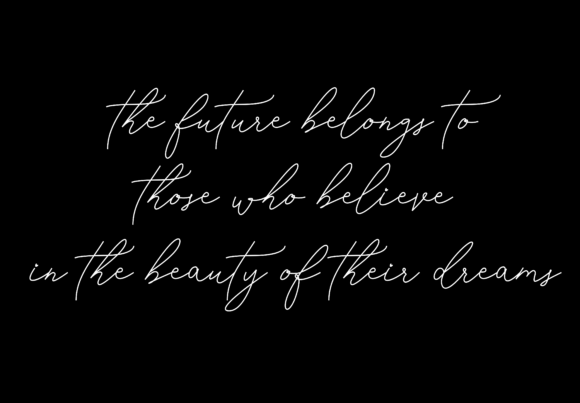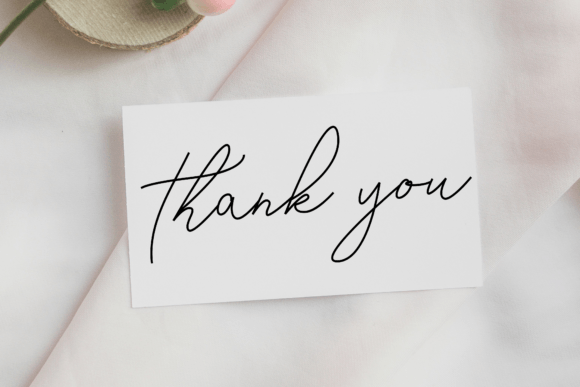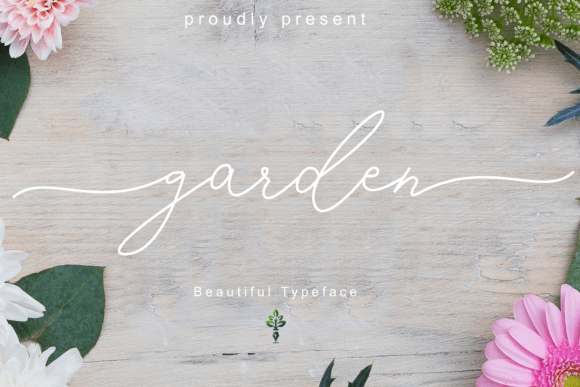
Discover the Elegance of Garden Font: Elevate Your Designs with Upscale Charm
Are you searching for a typeface that embodies the perfect blend of refinement and rustic charm? Look no further than Garden Font, a captivating script font that combines the elegance of high-end design with the warmth of handcrafted penmanship. This versatile font is specifically designed to add a touch of sophistication to a wide range of creative projects, from wedding invitations and gratitude notes to business logos and greeting cards.
The Essence of Garden Font
Garden Font is more than just a typeface – it’s an experience. Its carefully crafted design merges the luxury of refined typography with the organic feel of handwritten script, creating a unique and captivating visual identity. The font’s flowing lines and delicate curves evoke a sense of whimsy and romance, making it perfect for projects that require a touch of elegance and sophistication.
Whether you’re a designer, crafter, or DIY enthusiast, Garden Font offers endless creative possibilities. Use it to:
- Create stunning wedding invitations that set the tone for a memorable celebration
- Express heartfelt gratitude with beautifully designed thank-you notes
- Craft inspirational statements that motivate and uplift
- Design emotional greeting cards that touch the heart
- Add a touch of elegance to business logos and cards
A Font Designed for Professionals and Crafters Alike
Garden Font’s streamlined design makes it perfect for use in professional settings, while its whimsical charm ensures it remains a favorite among crafters and DIY enthusiasts. The font’s versatility and adaptability make it an excellent choice for a wide range of projects, from digital designs to handcrafted creations.
The Magic of Hand-Writing: PUA Coding and Ornamental Sweeps
Garden Font is empowered by PUA (Private Use Area) coding, making it easy to access all symbols and ornamental sweeps. This means you can unlock a world of creative possibilities, from intricate flourishes to beautiful swashes. With Garden Font, you can add a touch of magic to your designs, transforming them into visually striking creations that capture the imagination.
Effortlessly Weaving Elegance and Style into Your Craftsmanship
Garden Font is more than just a typeface – it’s a tool that helps you bring your creative vision to life. With its elegant design and versatile features, this font enables you to:
- Elevate your designs with upscale charm and sophistication
- Add a touch of whimsy and romance to your creations
- Transform your ideas into visually striking designs that capture the imagination
In conclusion, Garden Font is a captivating typeface that offers the perfect blend of refinement and rustic charm. With its versatile design, endless creative possibilities, and PUA coding, this font is an excellent choice for designers, crafters, and DIY enthusiasts alike. Whether you’re looking to create stunning wedding invitations, beautiful greeting cards, or elegant business logos, Garden Font is the perfect tool to help you bring your creative vision to life.